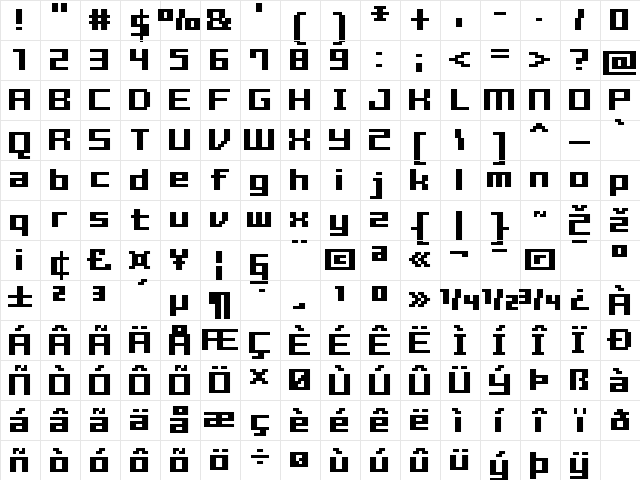
FFF Estudio Thin Bold Regular
Design Context for FFF Estudio Thin Bold Typeface
FFF Estudio Thin Bold is a composed and adaptable typeface that performs quietly and consistently across a wide range of design contexts. Its bold stroke weight gives it real presence on the page.